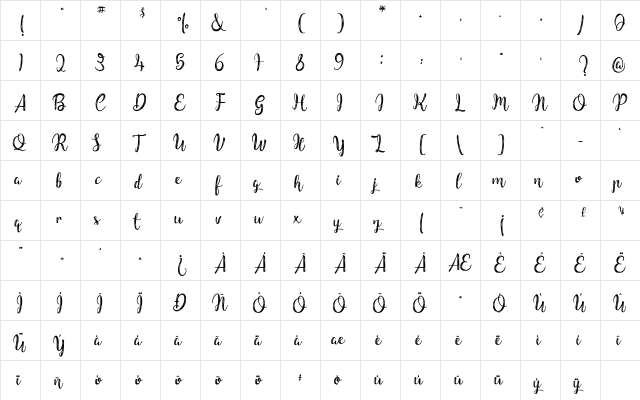
Children of the Starlight Regular
Design Context for Children of the Starlight Typeface
Children of the Starlight trades formality for fun, with bouncy, characterful letterforms that bring warmth and energy to any project.
Well-suited to food and beverage brands with personality, educational materials, and fun-forward identities.
Font Pairing: Pairs well with a rounded or humanist sans for body copy, maintaining the friendly tone without relying on Children of the Starlight to carry extended reading.
Pro Tip: Use Children of the Starlight at larger display sizes where its expressive character can land. Pair with a clean, simple sans for body copy to maintain readability.